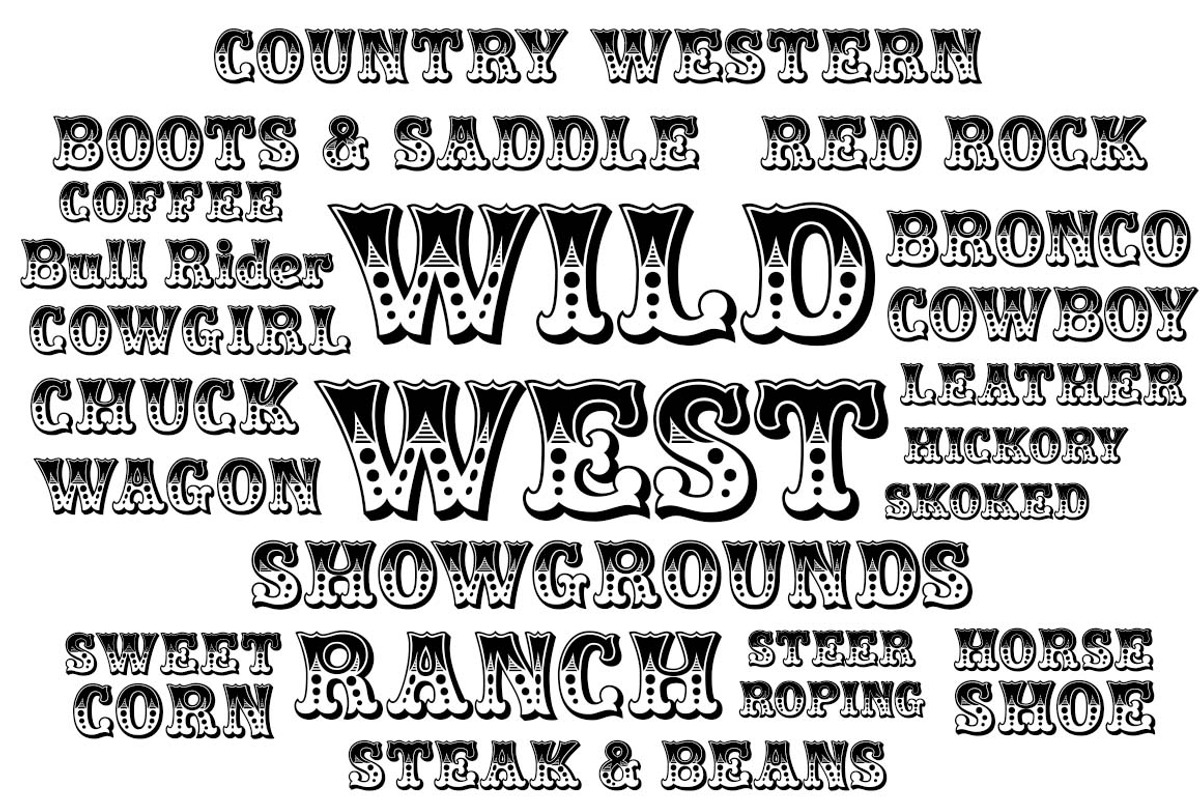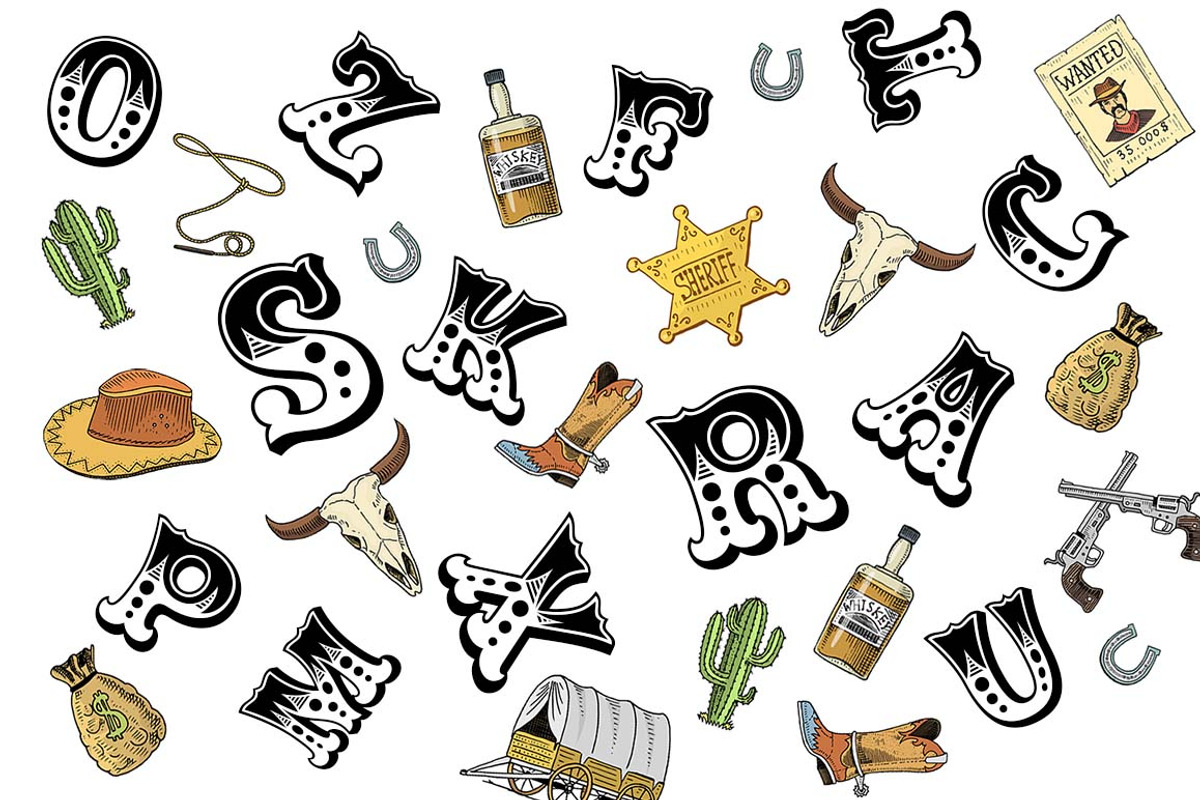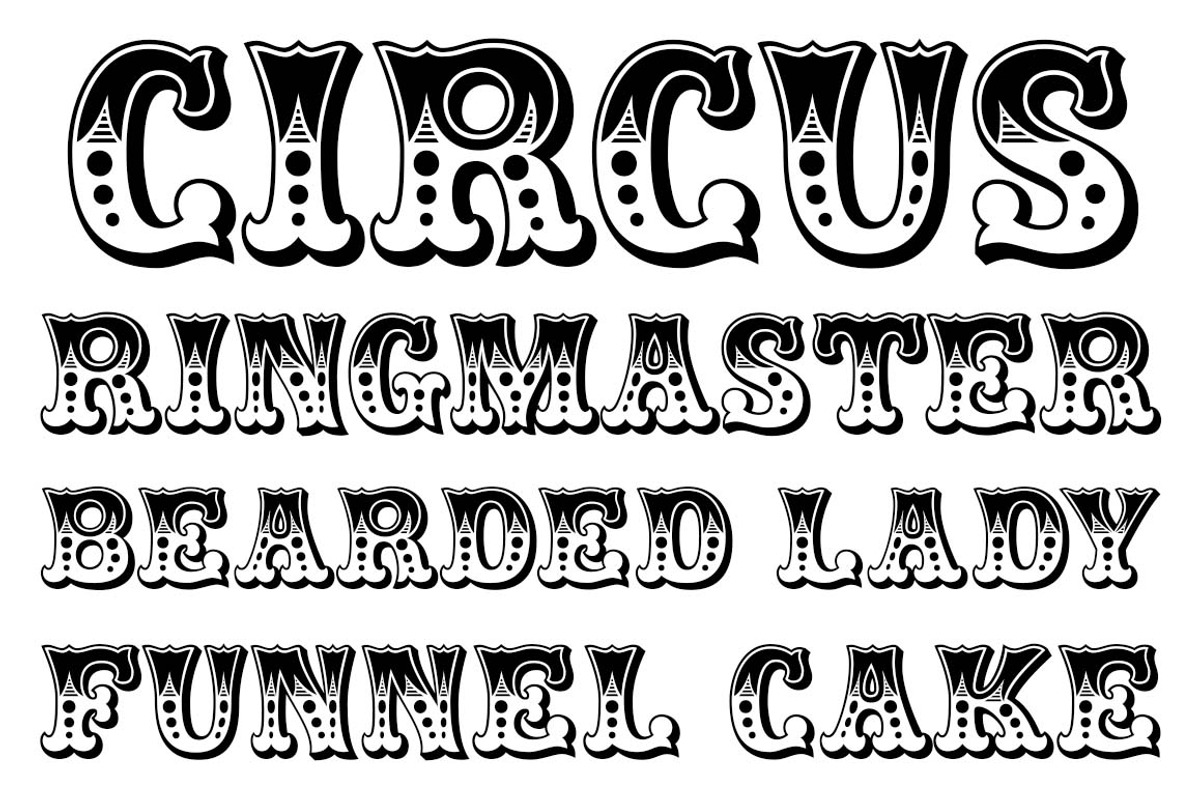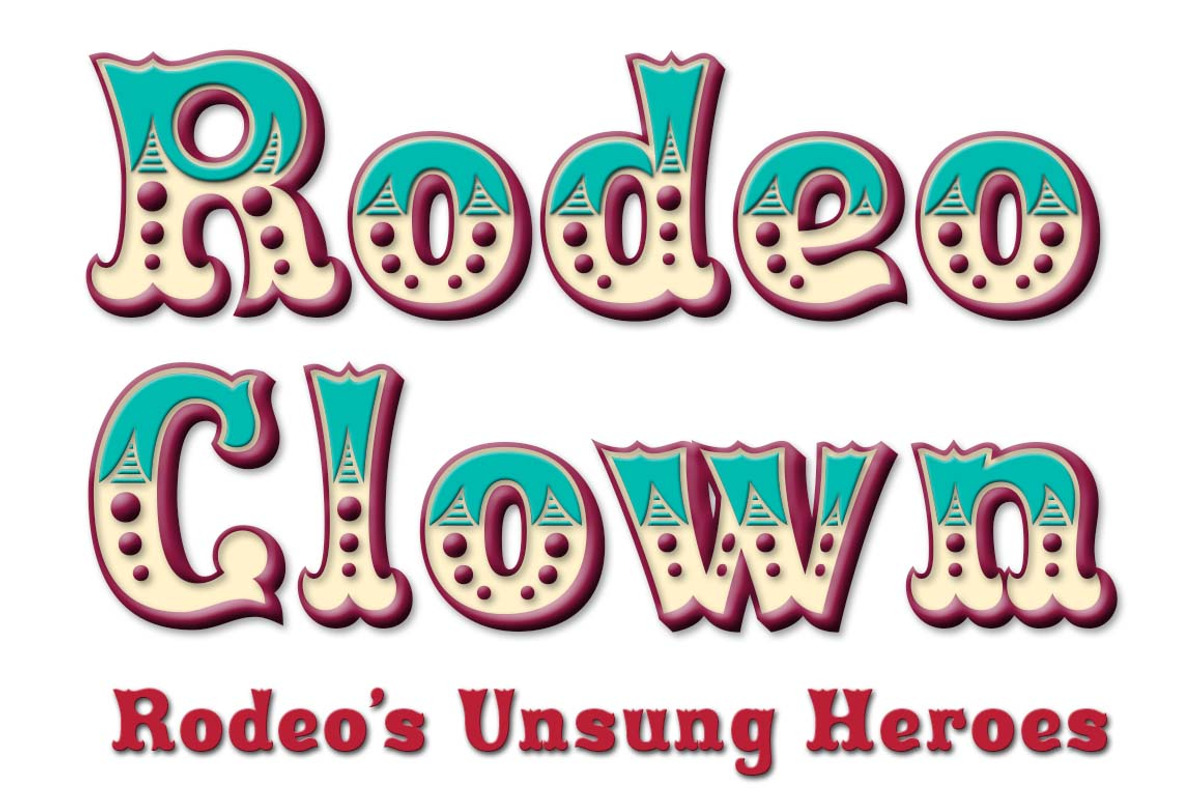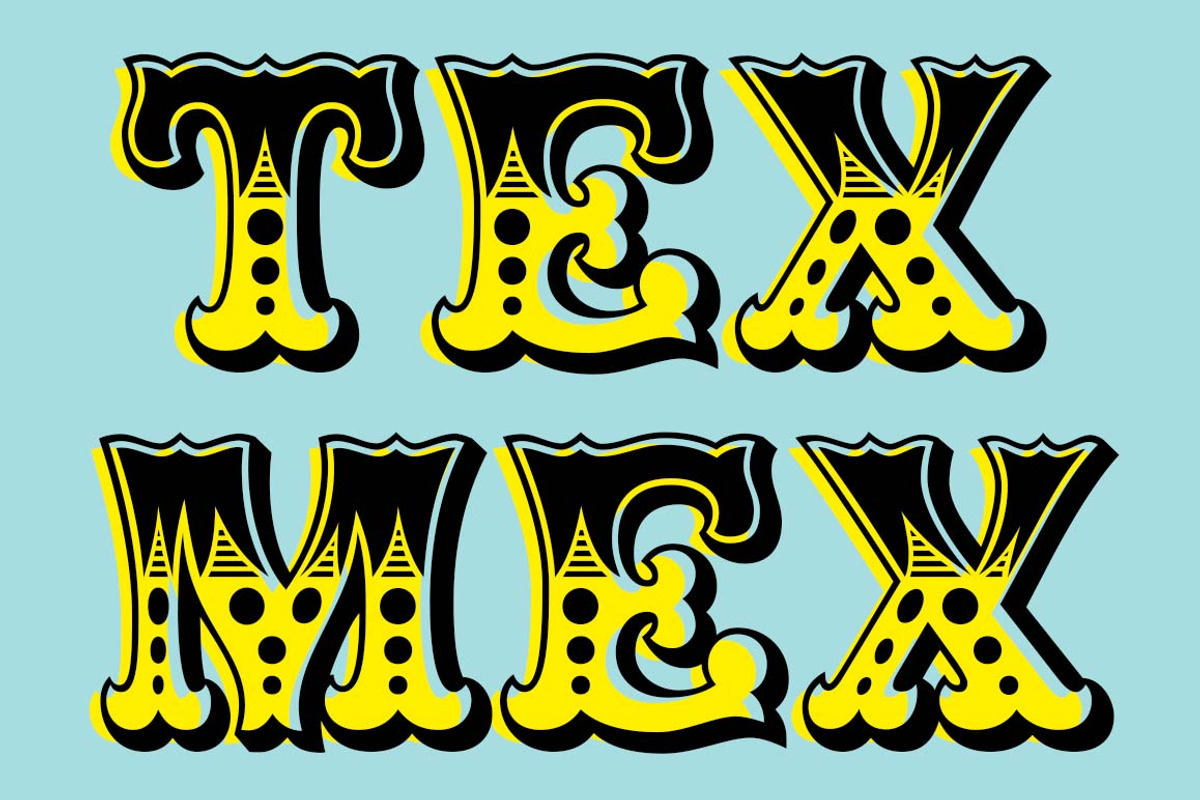
Rodeo Clown
Rodeo Clown is a revival of an old classic font that you may have known under the name of Carnival.
The Rodeo Clown family includes Fill fonts that you may layer behind the letters to add color or set to white so any background image doesn't show through the letters.
The half fill should be layered on top to change the color of the top inlay design.
The fill font for Rodeo Clown may also work as a stand alone black weight.
In our sales images you'll see a sample of the fill font being used, we've intentionally offset the fill font to give it a misaligned printed look which was common to see with fill fonts in the 1800's
Originally released in 2006 this new 2021 version has been refined with many improvements which include additional accented characters and case sensitive forms.